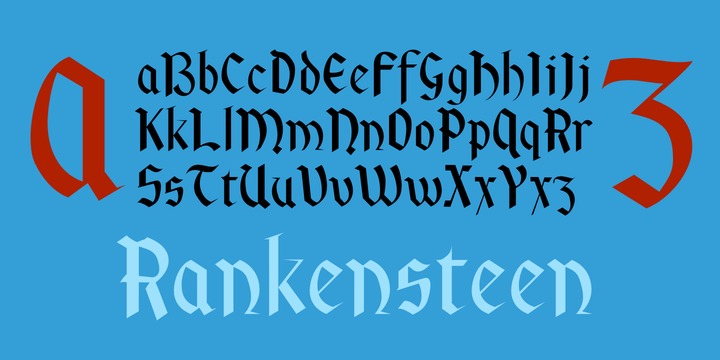
Rankensteen
Designed by: Robert Schenk
Designed when: 1989
Contained in Categories: Blackletter, Funny
Rankensteen
Rankensteen is a bizarre and slightly menacing font.